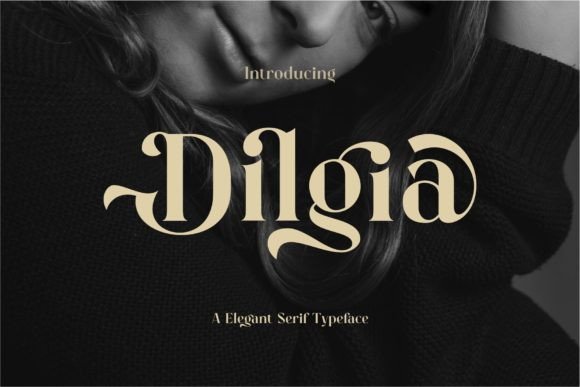
Dilgia Font: Elegant Serif for Minimalist Logo Design & Modern Branding
About the Dilgia Font
Get ready to be inspired by Dilgia Font, a fresh and dynamic typeface for modern creators. **Dilgia Elegant Serif Typeface Font** inspired by the famous minimalist logo perfect for the purposes of designing templates, brochures, videos, advertising branding, logos, invitations, layout design, elegant crafting, beauty design, and more.
Dilgia’s elegant serif design excels in headlines, logos, and short-form text like invitations or packaging where its refined details shine. It’s less suitable for body text or extended paragraphs due to its relatively high x-height and potentially slower readability at smaller sizes. Avoid using it in UI contexts requiring high legibility.
Its core personality is sophisticated and minimalist, lending itself well to brands emphasizing luxury, quality, or timeless style. Consider pairing Dilgia with a clean sans-serif like Montserrat for a modern contrast, or a playful script font like Great Vibes for a touch of handwritten charm, depending on the desired effect. A geometric sans-serif could also create a striking, contemporary pairing.
For a more classic feel, a complementary serif like Garamond could be used, although this would maintain a similar overall mood. Careful consideration should be given to the weight and spacing of the paired font to ensure optimal visual balance and readability.